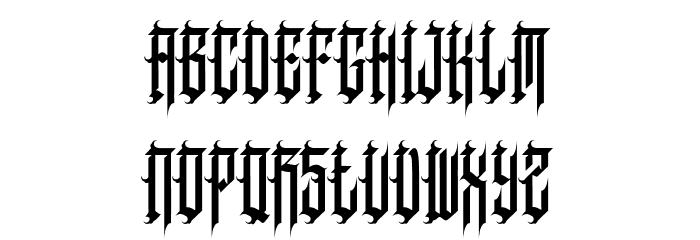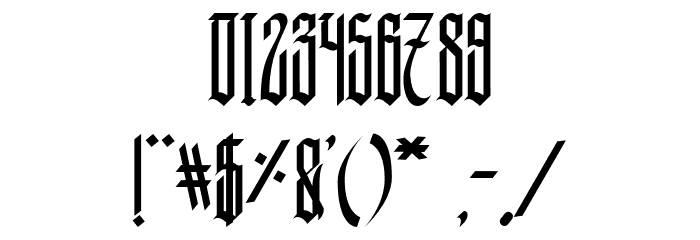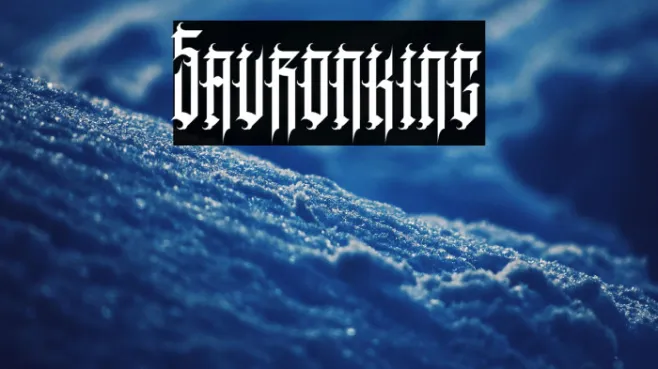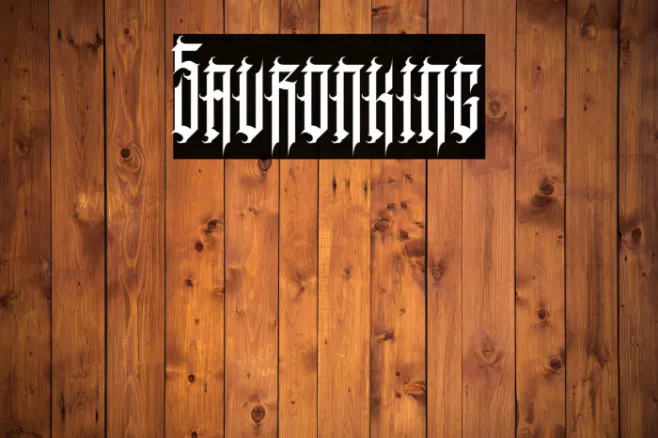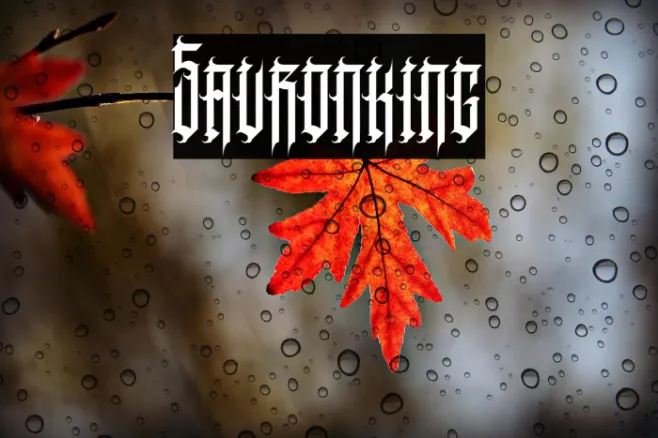
Sauronking Font
This font exhibits a striking and bold blackletter style, characterized by its sharp, angular lines and intricate detailing. The uppercase and lowercase letters maintain a consistent gothic aesthetic, with elongated vertical strokes and pointed serifs that give it a dramatic and historical feel. The numerals and special characters are designed to match this ornate style, ensuring a cohesive look across all text. This font's unique appearance makes it ideal for projects that require a medieval or fantasy theme, adding a touch of elegance and mystery.
A bold blackletter font with sharp, angular lines and intricate detailing.
- Font: Sauronking
- Proposed Projects: Ideal for fantasy-themed designs, medieval event posters, book covers, and branding that requires a historical or gothic touch.
- Category: Blackletter
- Character Spacing: Tight